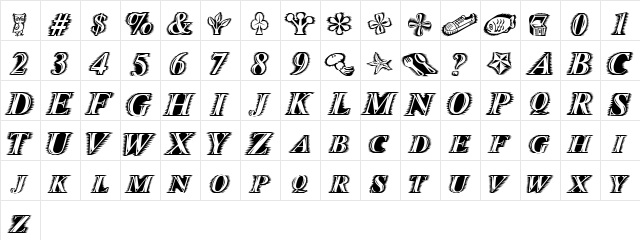
Zippo Regular Font Preview
Zippo Regular
Zippo Regular Font Details
Design Context for Zippo Typeface
Zippo is a composed and adaptable typeface that performs quietly and consistently across a wide range of design contexts.